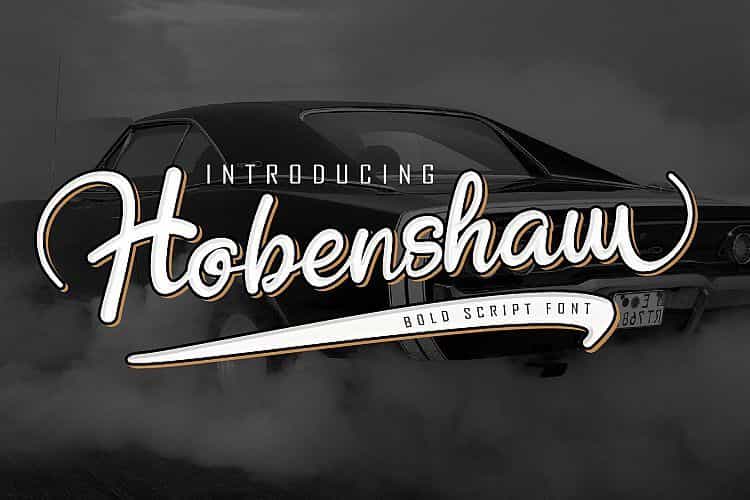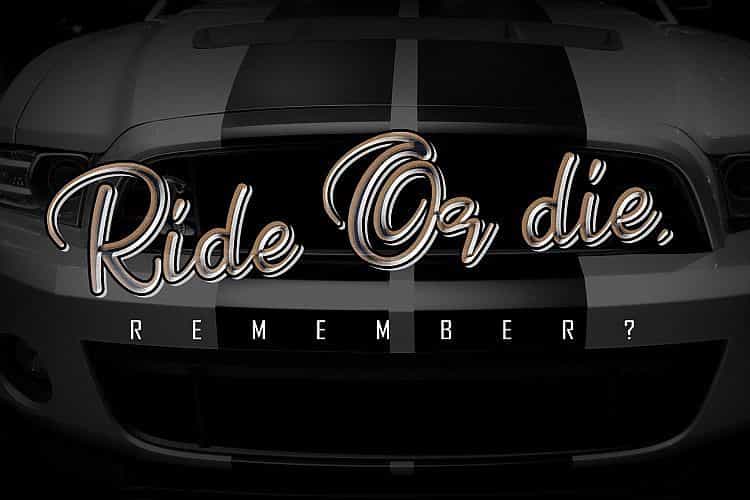
Introducing Hobenshaw Script Font. Hobenshaw designed and posted by letterara. It is a hand drawn font. This typeface has all the uppercase and lowercase standard characters, punctuation marks, numerals and alternative.